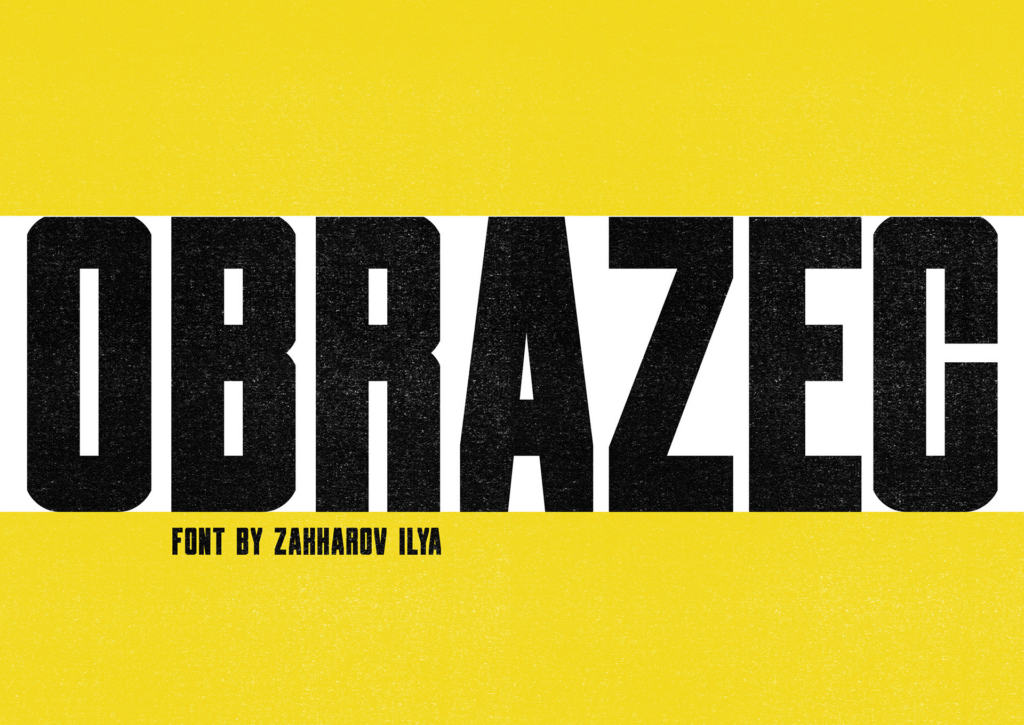
Introducing Obrazec, a strong industrial style sans serif font from Ilya Zakharov. Great for creating logos, promotional materials, ads & much more.
OBRAZEC Free Font